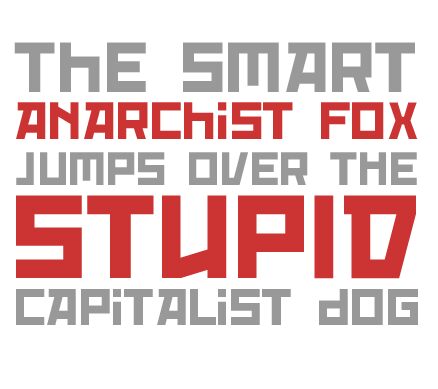
Red October
Red October, a unique typeface crafted by designer Ivan Filipov, takes its inspiration from the robust and evocative styles of Russian typography. This semi-bold font boasts an expanded width that exudes strength and presence. Its clean, sharp lines and geometric structure give it a contemporary edge while still maintaining a nod to traditional foreign character aesthetics.
The aesthetic appeal of Red October lies in its bold simplicity, making it both versatile and impactful for various creative projects. The font’s Russian styling infuses a sense of cultural authenticity that is perfect for thematic designs requiring an Eastern European touch. Whether employed in graphic posters, striking headlines, or branding initiatives that demand attention, Red October stands out with its commanding presence.
With Red October's distinctive expanded letterforms and semi-bold weight, designers can leverage this font to create work that resonates with authority and visual interest. Its style is not just an artistic statement but also a functional asset in the arsenal of creatives looking to add depth and character to their design narratives.